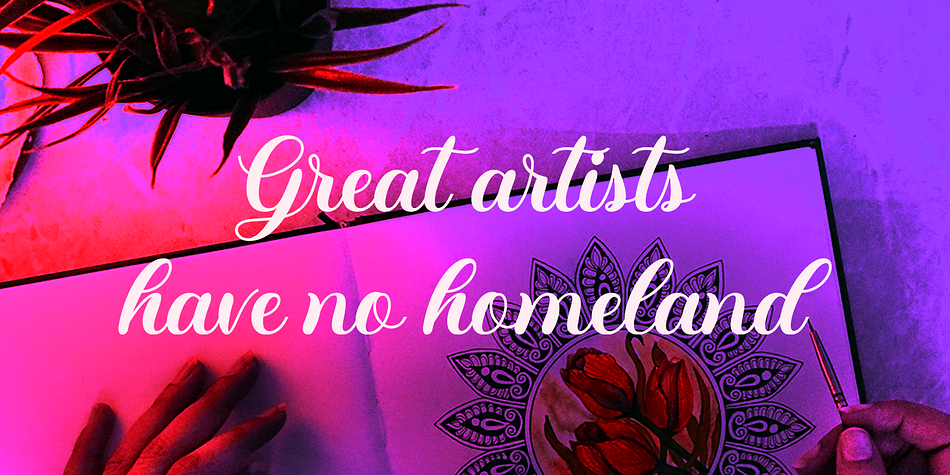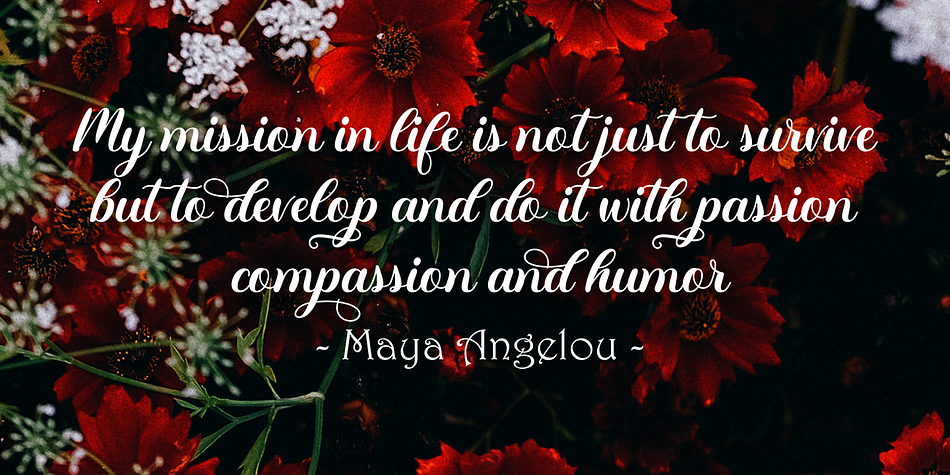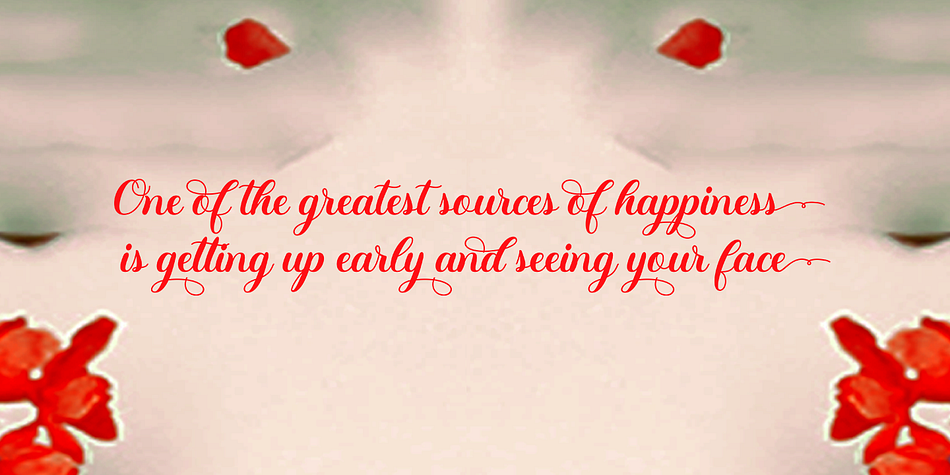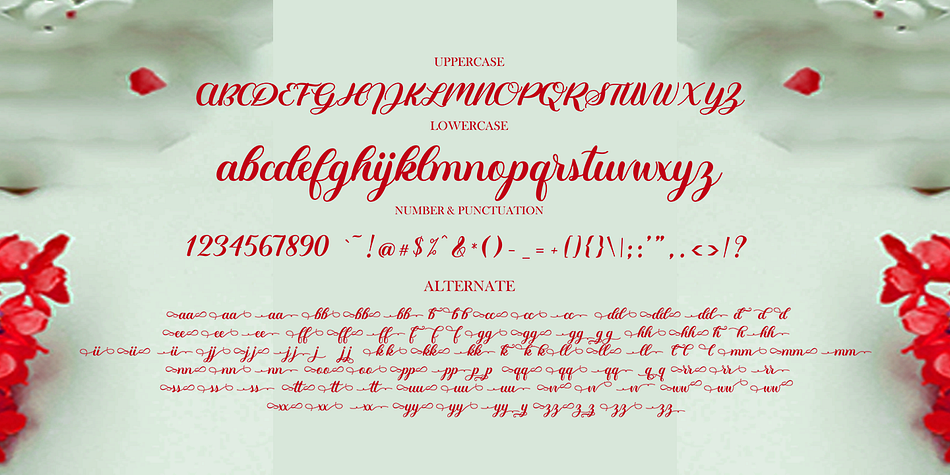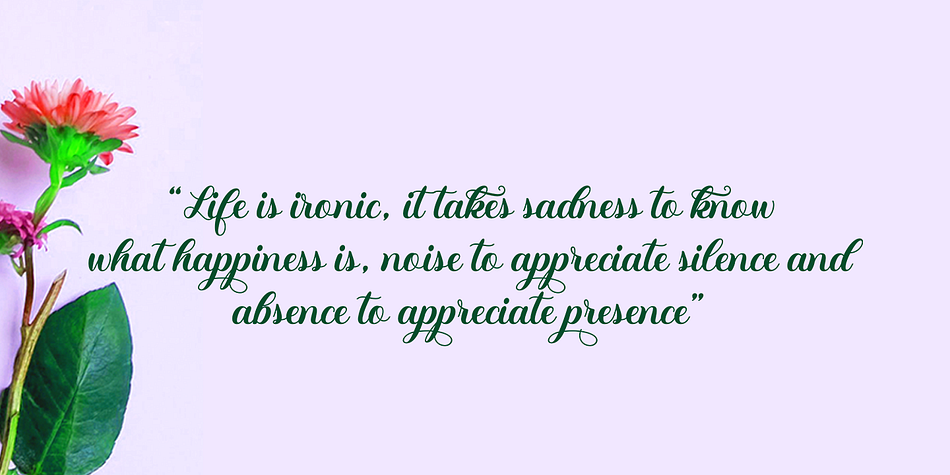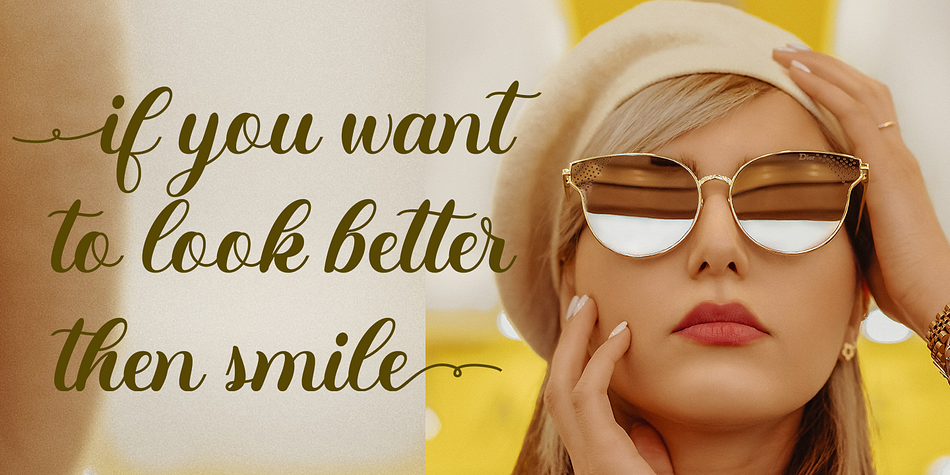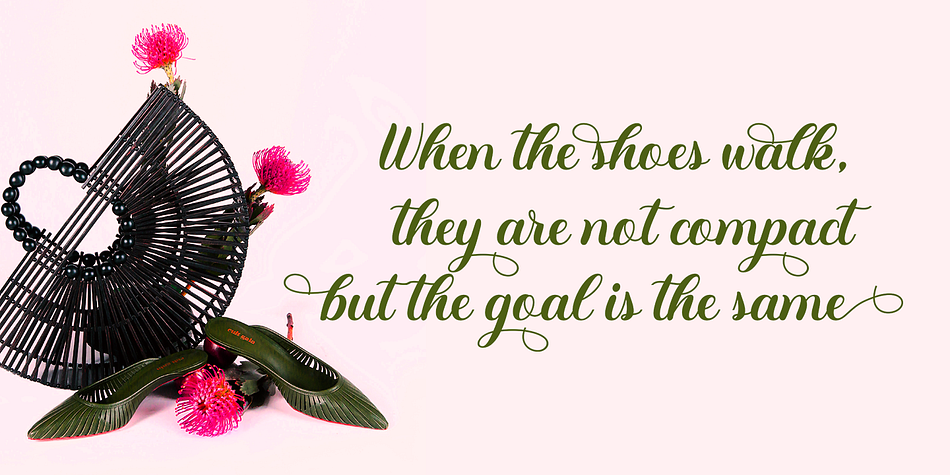
Sweden Love
Sweden Love is a brush script font family published by Gatype.
Sweden Love is an elegant script font with a contemporary atmosphere and impeccable shapes, Neither too thin nor too thick balanced and varied. Sweden Love is designed to enhance the beauty of your project.
These designs are used for branding, web and editorial design, print, crafts, quotes, It’s great for logos, wedding invitations, romantic cards, labels, packaging, name spelling and more.